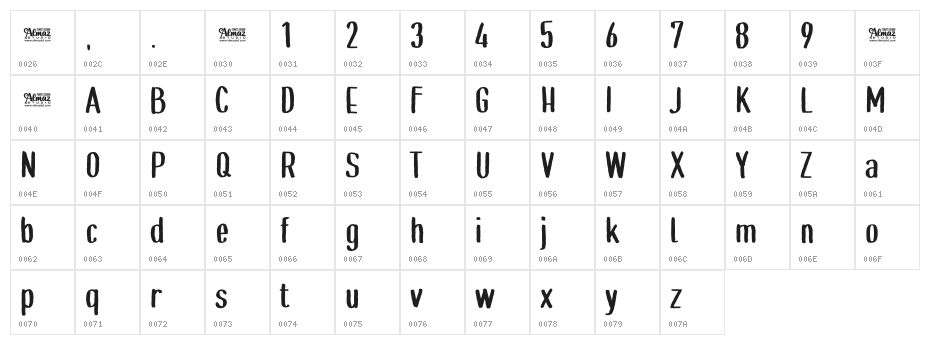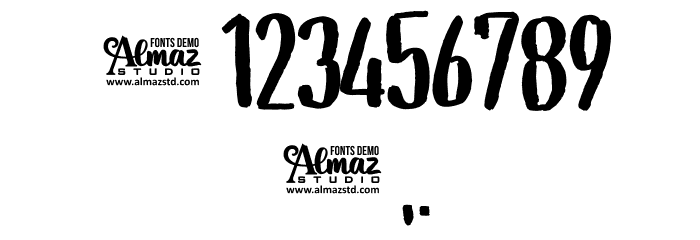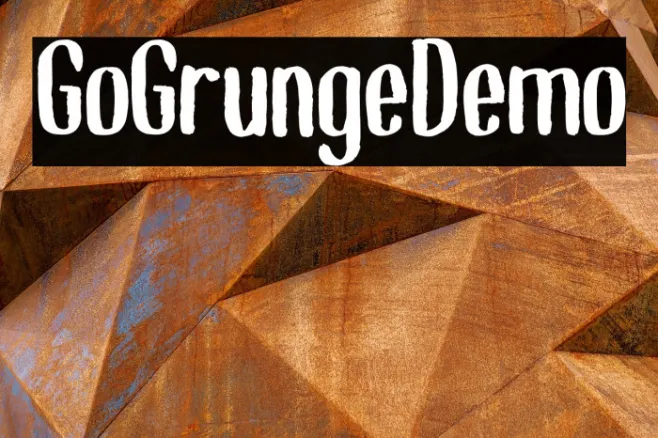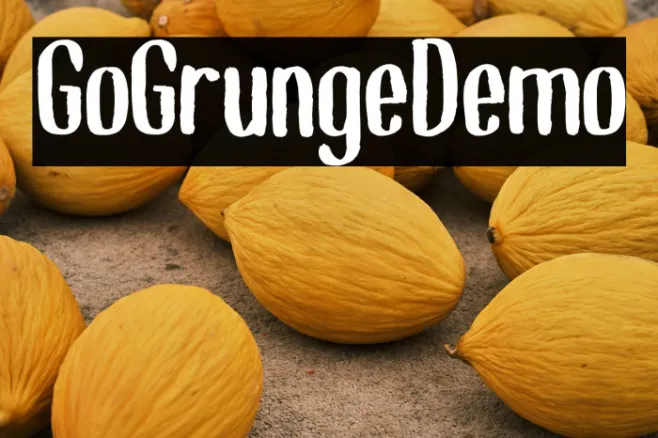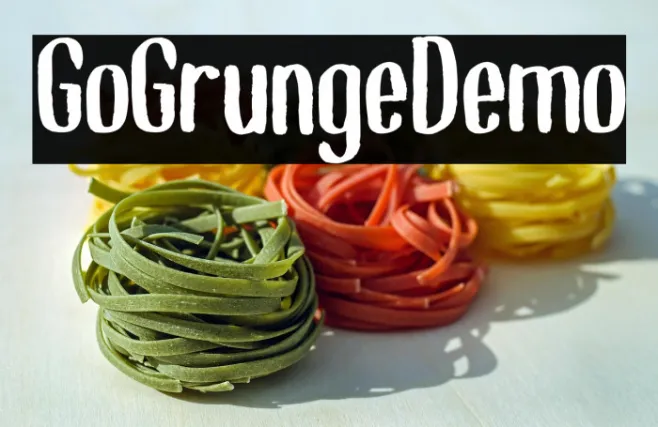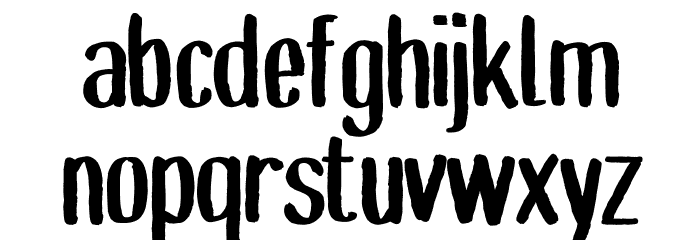
GoGrunge_Demo Font
GoGrunge_Demo Description
This font features a bold, hand-drawn style with a distinctly grunge aesthetic. The characters are unevenly weighted, giving them a raw and organic feel. The uppercase and lowercase letters maintain a consistent style, with slightly irregular edges that enhance the rugged appearance. The numbers and special characters follow the same design principles, ensuring a cohesive look across all glyphs. This font's unique texture and imperfect lines make it stand out, ideal for projects that require a touch of edginess and personality.
| Proposed Projects | Perfect for album covers, posters, streetwear branding, and any project needing a gritty, artistic touch. |